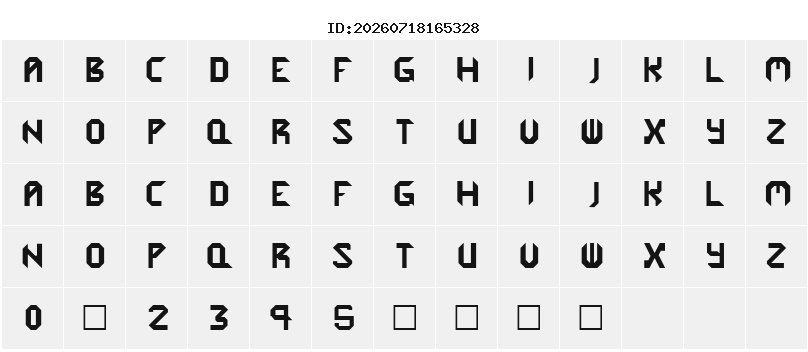
• Font Name: Cybergenics
About Cybergenics.ttf
Cybergenics.ttf is a modern, elegant sans-serif font designed for ultimate readability and visual harmony. Perfect for branding, headlines, web design, and print materials.